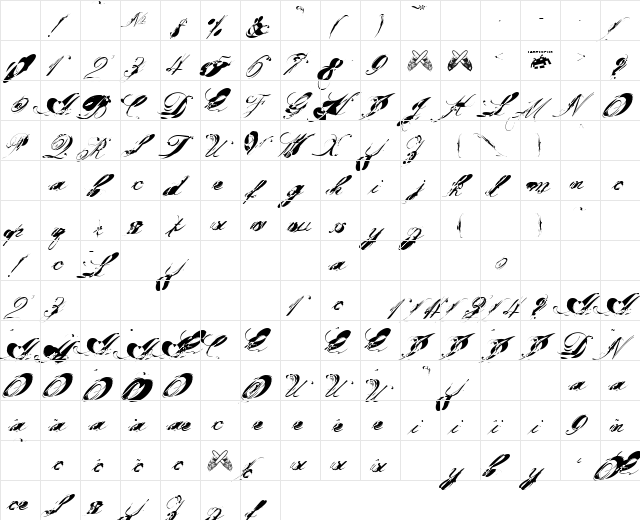
Complete garglenutz recur51ve glyph index. Displaying only characters natively supported by garglenutz recur51ve font.
garglenutz is a composed and adaptable typeface that performs quietly and consistently across a wide range of design contexts.